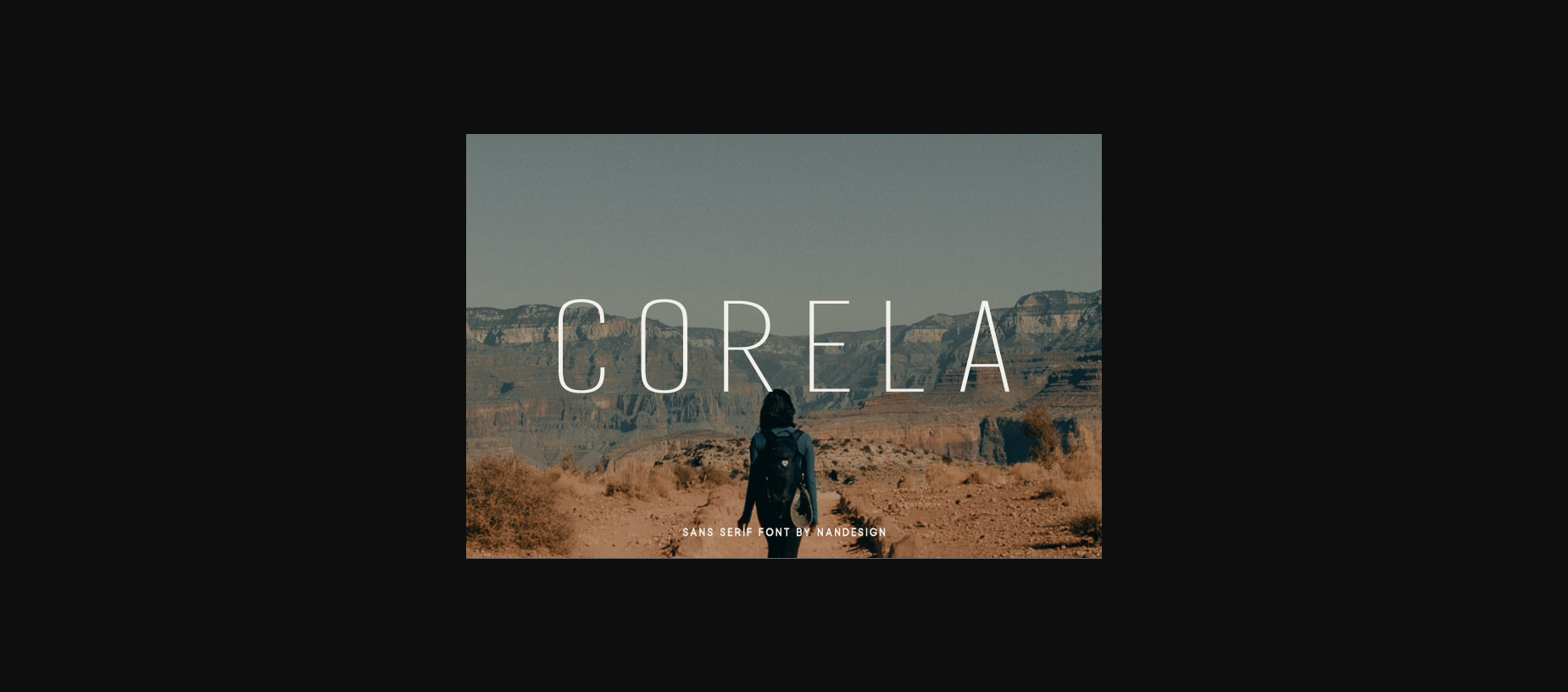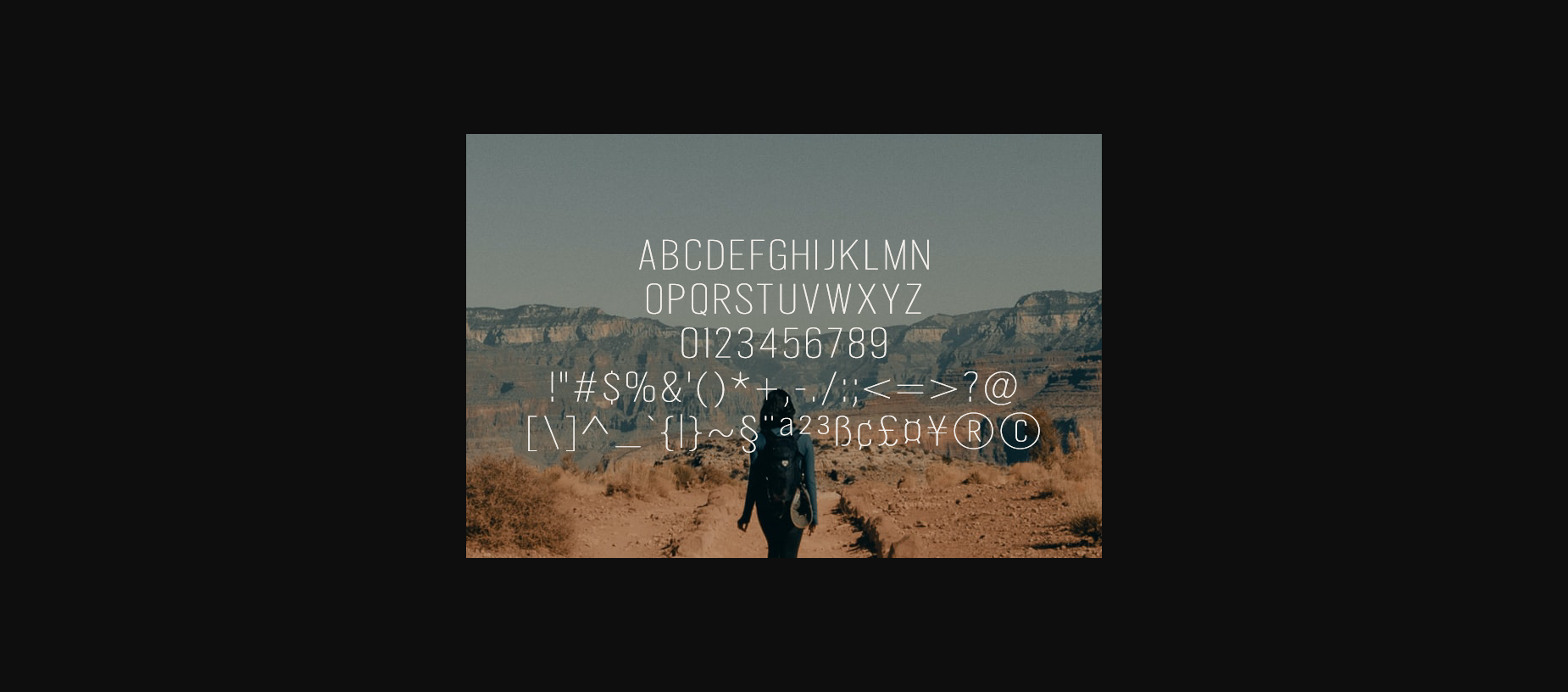
HomeSans Serif FontsCorela Font Sans Serif Fonts Corela Font FacebookXPinterestWhatsApp 1 of 4 ... Corela Font Poster 2... Corela Font Poster 3... Corela Font Poster 4... About Corela Font Corela is a fancy, contemporary sans serif font. It will complement any design need perfectly with its perfectly balanced mix of the smooth and sharp! DOWNLOAD NOW People also explored Babyish Glory Font Girl Power Font Darling Font Datano Font Sweet Buttermilk Font Strike Font Grand Estonia Font Sword Knights Font Anthaya Font 413 0 TagsCorelaCorela Font Previous articleMadlyne FontNext articleShowing Font LEAVE A REPLY Cancel reply Comment: Please enter your comment! Name:* Please enter your name here Email:* You have entered an incorrect email address! Please enter your email address here Website: Save my name, email, and website in this browser for the next time I comment. Personal Use Free Coconote Personal Use Free Read more about this font Salmoni Personal Use Free Read more about this font Authurium Personal Use Free Read more about this font Bukan Personal Use Free Read more about this font BLOG Best Fonts for T-Shirt Design – Top 2025 Picks In 2025, t-shirt design has become more than just fashion—it's a form of self-expression. Whether you're... Free Fonts Risk: Why Free Fonts Can Be Dangerous for Designers How to Install and Use Fonts on Windows, macOS, and Web Projects 5 Fonts That Will Dominate Design Trends in 2026